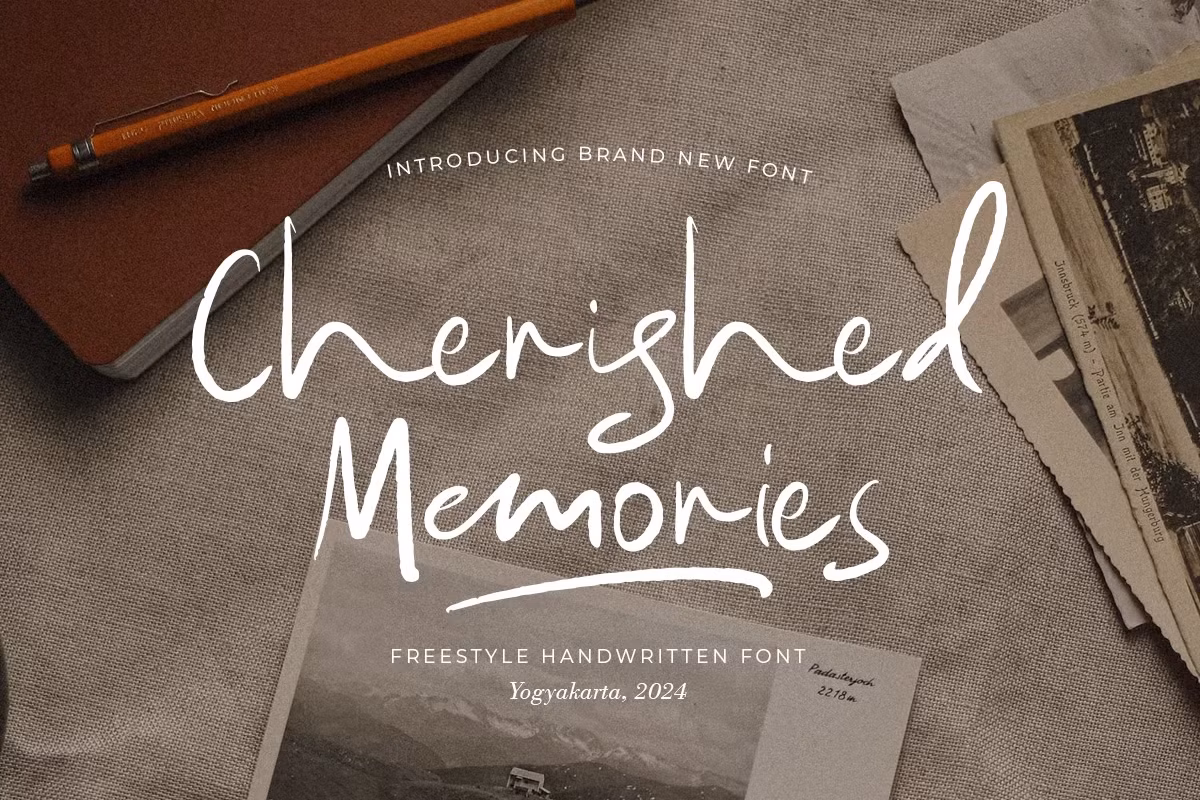
Warm, personal, and full of charm, Cherished Memories Handwritten Font Free Download is a beautifully crafted script typeface designed to evoke a sense of nostalgia and warmth. Perfect for wedding invitations, personal branding, greeting cards, logos, and social media graphics, this font adds a heartfelt, handwritten touch to any design.
With its fluid strokes, elegant curves, and authentic feel, Cherished Memories gives your typography a cozy, intimate vibe, making it ideal for projects that need to feel personal and inviting. Whether you're creating a romantic invitation or crafting a warm brand identity, this font offers the perfect blend of sophistication and personality.